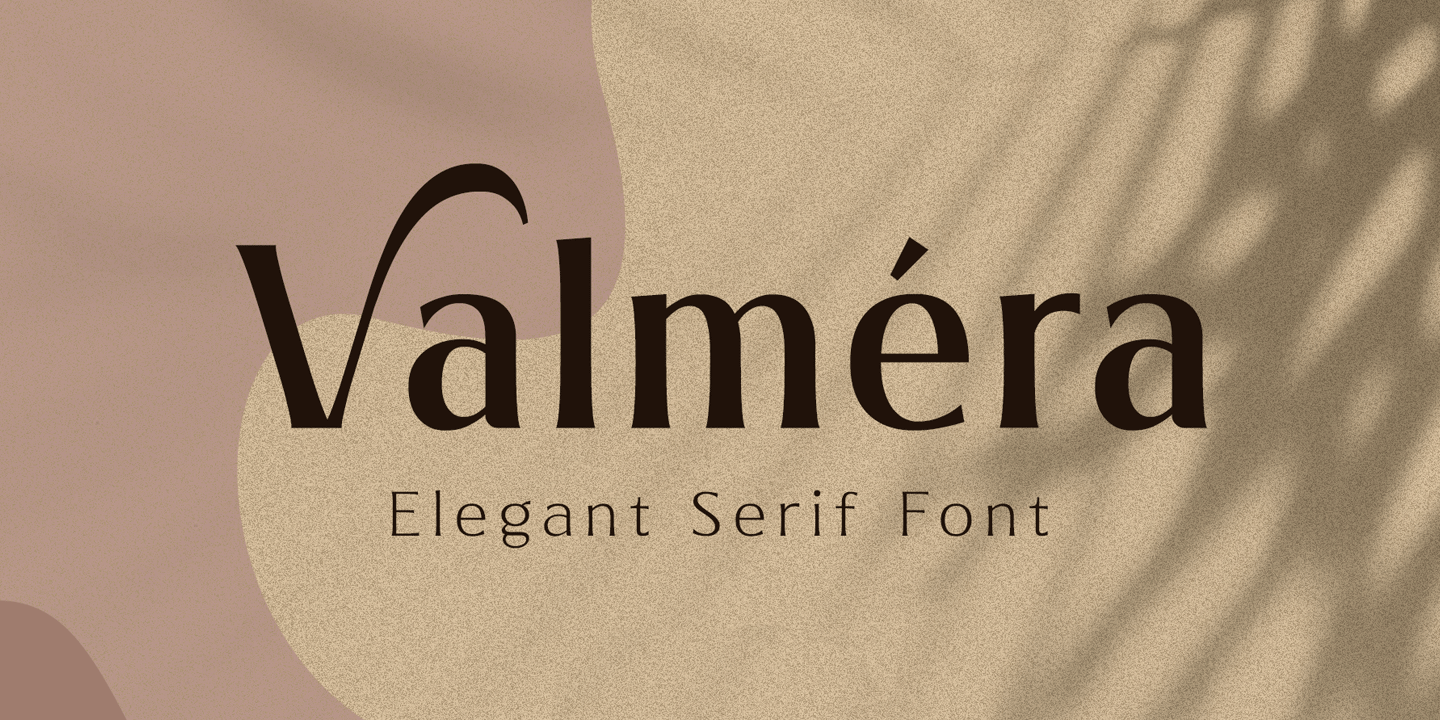
Valmera Font is perfect for Mediterranean luxury resort branding, vineyard estate communications, coastal villa rental marketing, European boutique hotel signage, artisanal olive oil packaging, sophisticated wine cellar materials, sunset terrace restaurant promotions, and elegant seaside wedding venue campaigns. This enchanting typeface excels in applications where Mediterranean elegance, coastal sophistication, and timeless European charm are essential for connecting with audiences who appreciate the refined beauty of Mediterranean lifestyle and the romantic allure of coastal European destinations.
What makes Valmera Font so exciting is its graceful embodiment of Mediterranean sophistication and coastal elegance that perfectly captures the essence of European seaside luxury and the timeless beauty of Mediterranean culture where ancient traditions meet contemporary refinement. The font features flowing, elegant letterforms with Mediterranean characteristics that evoke handwritten villa guest books and seaside poetry. Its sophisticated character conveys romance, refinement, and cultural heritage - essential qualities for brands serving luxury travel markets, European hospitality, and audiences who appreciate Mediterranean lifestyle, coastal elegance, and the sophisticated charm of European seaside culture and vineyard traditions.
The Valmera Font family includes multiple elegant weights and Mediterranean-inspired variations that enhance its coastal appeal. Some versions feature subtle wave-like flourishes and vineyard-inspired elements that reflect Mediterranean landscape beauty, while others provide refined variants that maintain the font's sophisticated character with enhanced readability for professional luxury hospitality applications and commercial Mediterranean lifestyle communications.
Whether you're creating branding for Mediterranean resorts, designing materials for European wine tourism, or developing marketing campaigns for coastal luxury experiences, Valmera Font Free Download provides the Mediterranean sophistication your project requires. The font's elegant character makes it particularly effective for brands targeting luxury travelers who appreciate European culture, Mediterranean beauty, and the refined elegance of coastal European lifestyle and vineyard sophistication.
Embrace Mediterranean elegance with Valmera Font and sail into sophisticated brand communications with typography that celebrates the timeless beauty of European coastal luxury and Mediterranean refinement.